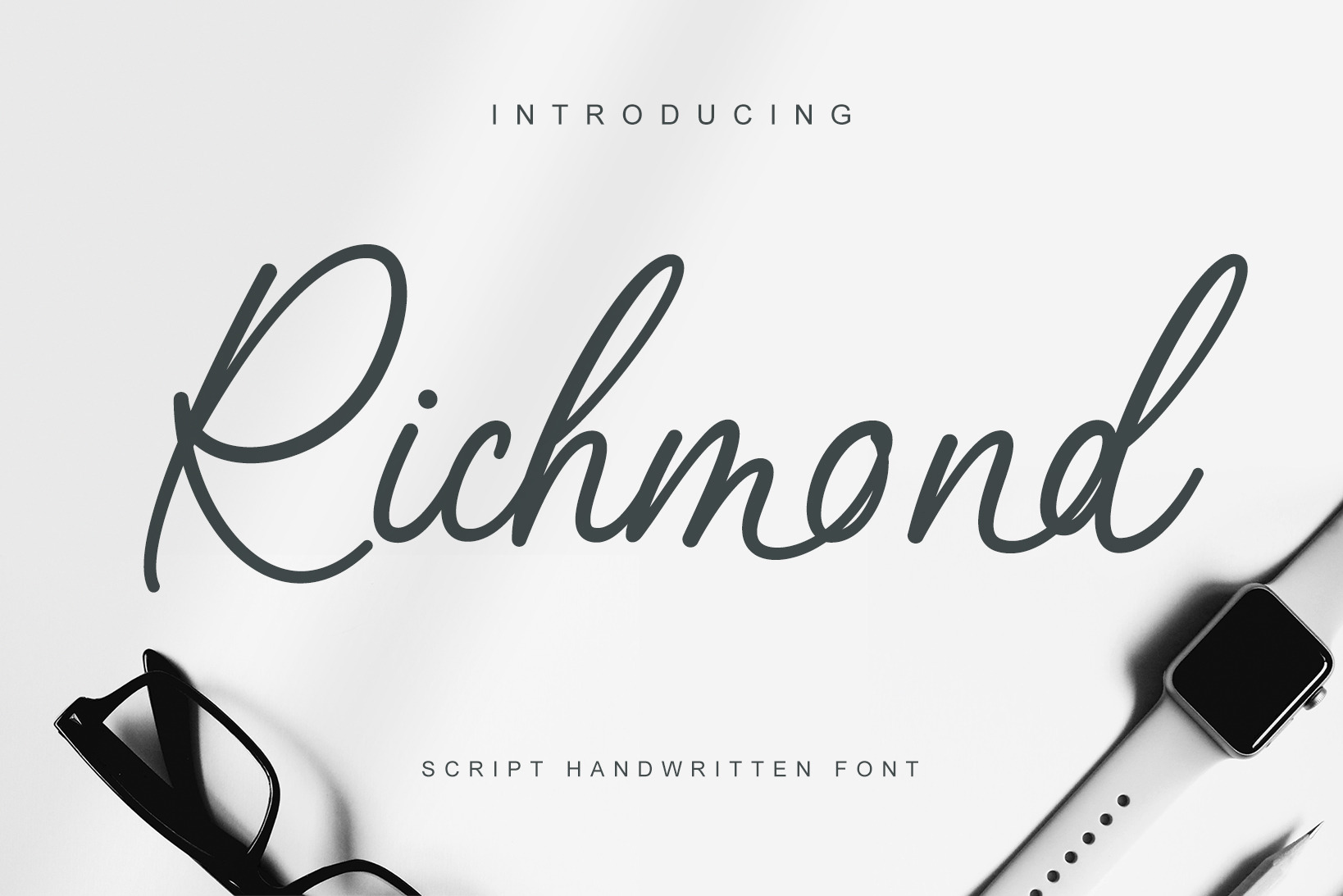
Introducing Richmond script handwritten font
Richmond is a script handwritten font with modern style,
Richmond comes with uppercase letters, lowercase letters, multilingual support, numbers and punctuation